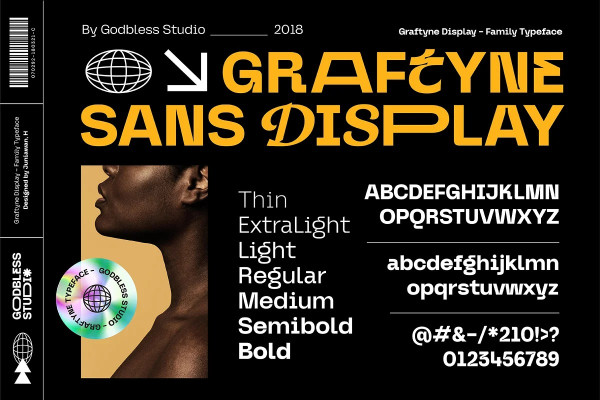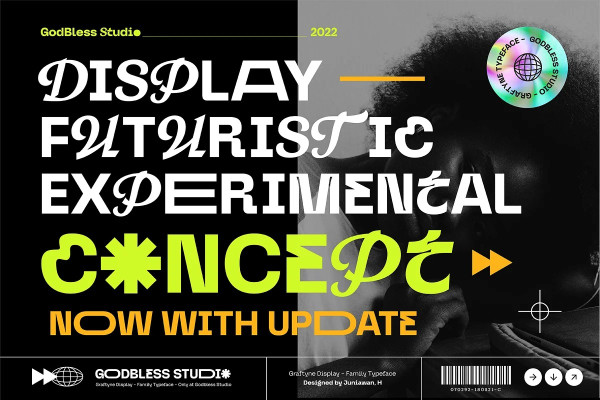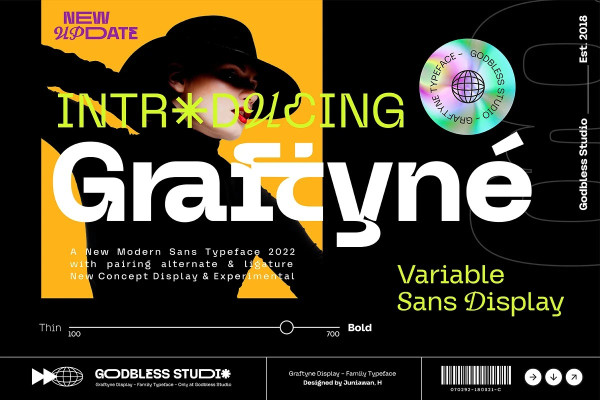
Graftyne Font
Graftyne Font – sans serif typeface with a unique personality. It comes in normal and display alternate, each with 7 weights variable.
Graftyne sans serif typeface is flavor in motion and each part of its system works together to captivate you, combining emotion and usability, allowing you to create attractive and unique designs.
It is made experimentally following a futuristic style recipe with alternate characters made with inktrap and display that makes this font more stylish and varied.
Graftyne is a variable font that has 7 weights from thin to bold. also includes alternates that are more varied with variables.
Graftyne sans is a versatile font system, designed primarily for display uses with a need of visual impact.